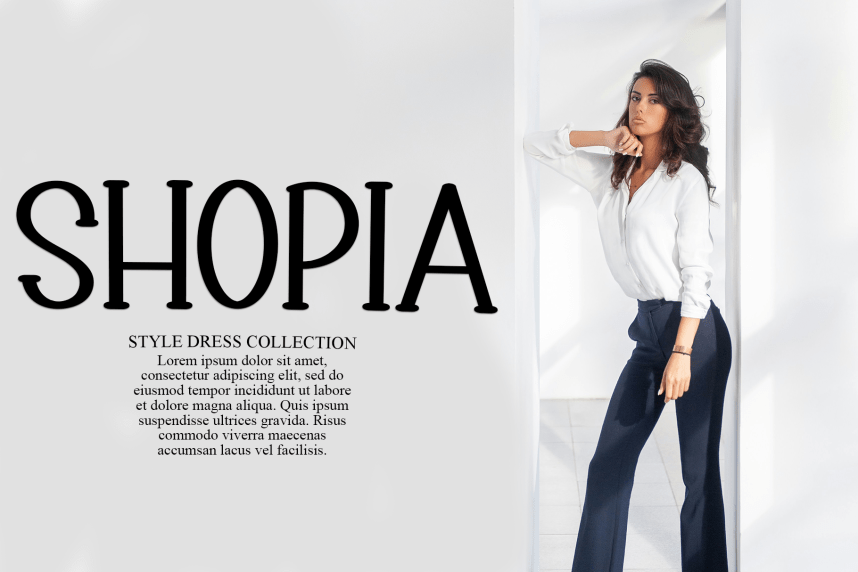
Simple Number – Modern Handmade Font is a handmade serif display font. It features elegant, bold letters with a classic touch, making it perfect for headlines and titles. The font has a friendly and warm style, with unique details that give it character. Great for adding a personal and artistic flair to your designs!